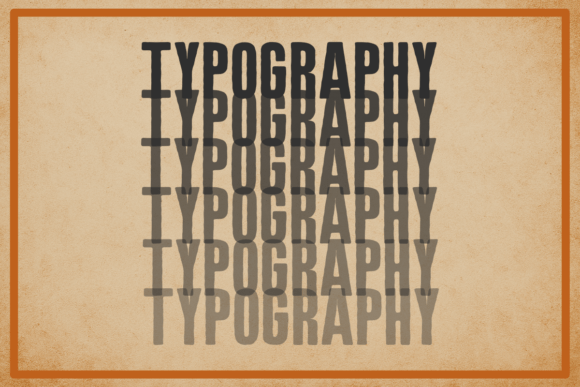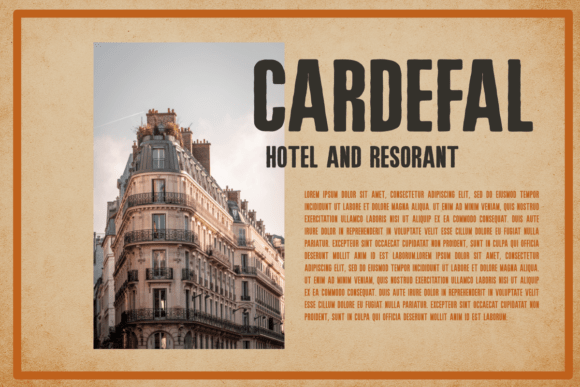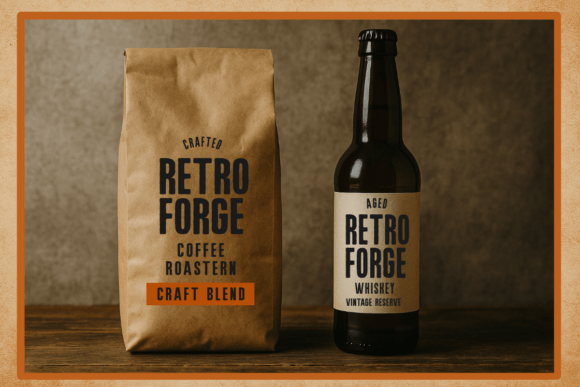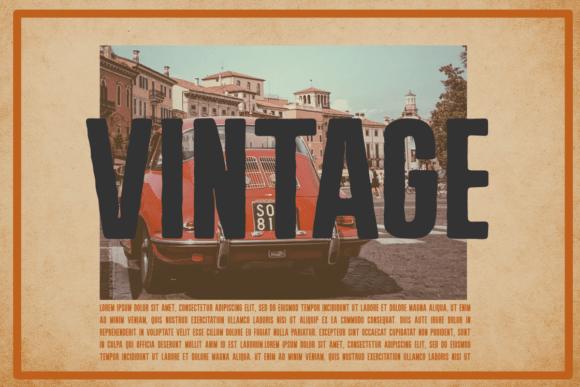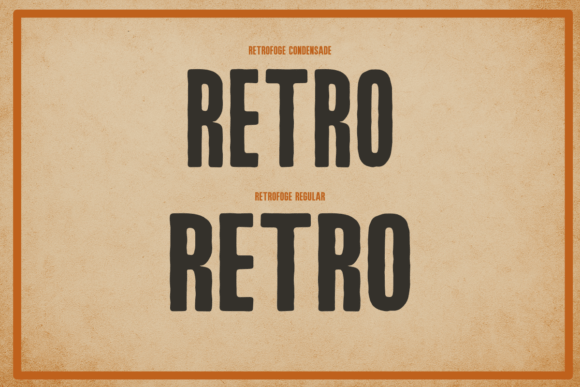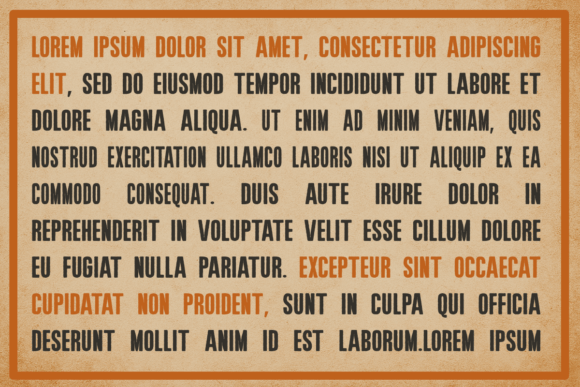
Introduction to Retroforge Font
Retroforge – Vintage Industrial Typeface Retroforge is a textured sans-serif typeface that blends classic vintage aesthetics with a modern industrial edge.
With bold, sturdy letterforms and a handcrafted, textured finish, Retroforge adds a timeless, authentic, and powerful character to any design Perfect for branding, packaging, product labels, signage, retro posters, apparel, cafés, and barbershop designs, this typeface delivers a strong vintage press look that feels both nostalgic and contemporary.
Key Features of Retroforge Font
Why Choose Retroforge Font?